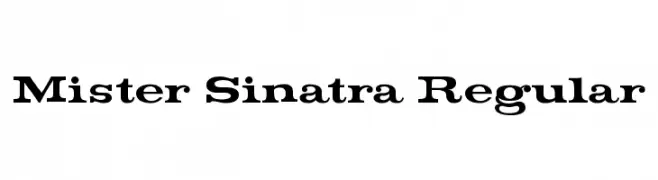
A bold, serif font with strong strokes and a classic, authoritative style.
A bold serif font with a classic yet modern style, featuring strong serifs and consistent strokes.